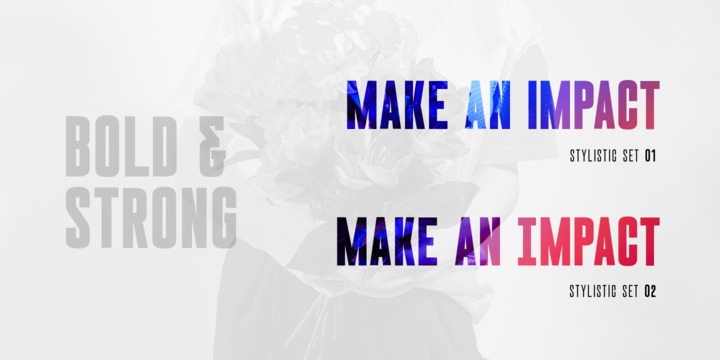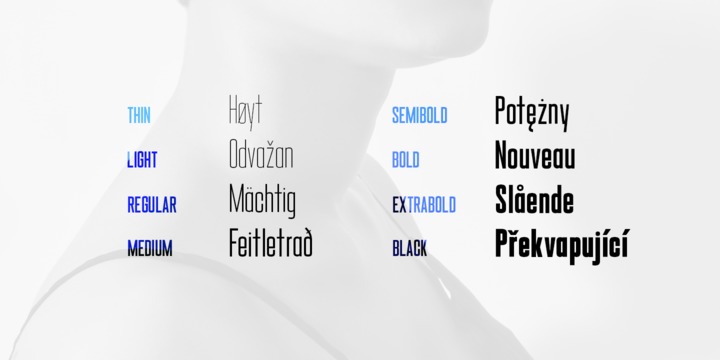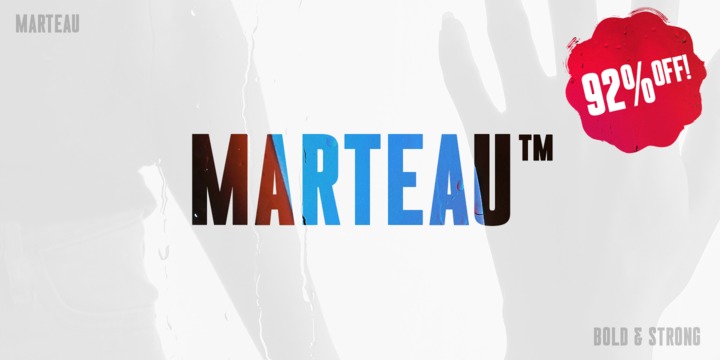
Marteau Font Family
About this font family
Marteau is a strong, clean, and modern condensed geometric sans-serif. It’s purpose lies in branding, advertising, packaging, and all other design that calls for a big impact. It is the display typeface for all things contemporary, from rustic coffee shops to colorful web design – the versatility of Marteau allows for prefect integration into a wide variety of aesthetics.